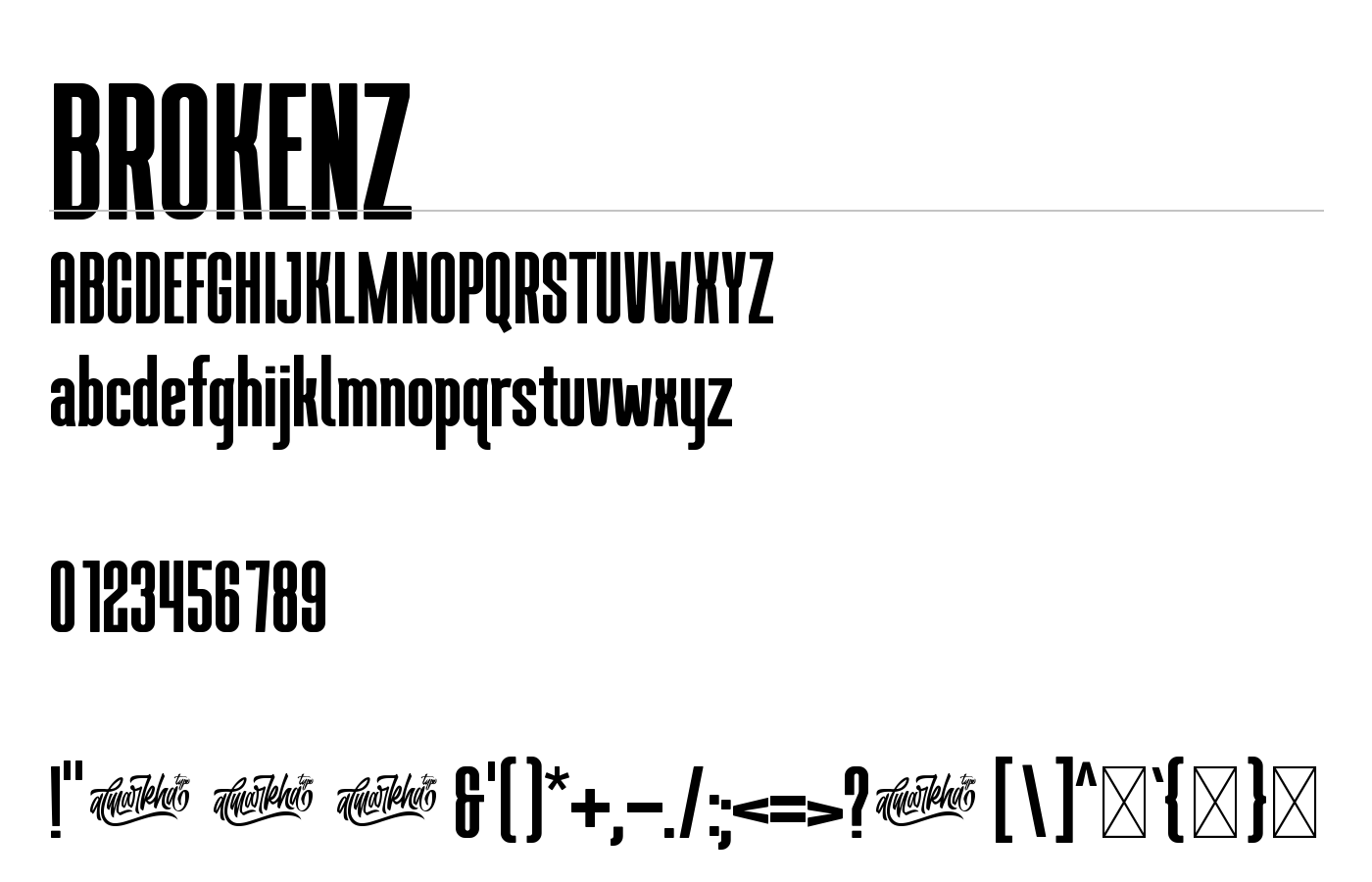
BROKENZ is a tall, narrow sans serif font with a bold, condensed design that projects a strong and modern personality. Its high x-height and uniform stroke weight lend it a clean, industrial appearance, perfect for striking headlines or logos that need to command attention with a sleek, urban edge. This font works well in contemporary branding, posters, and editorial layouts where a dramatic and confident tone is desired.
BROKENZ Font
About BROKENZ Font